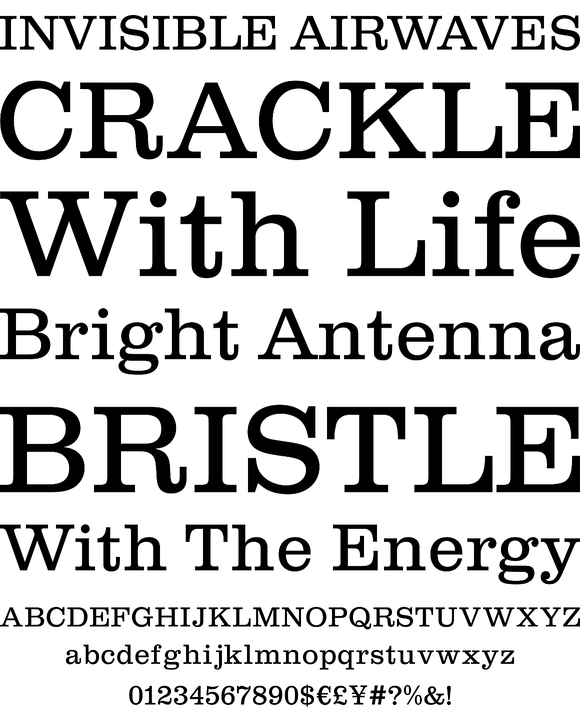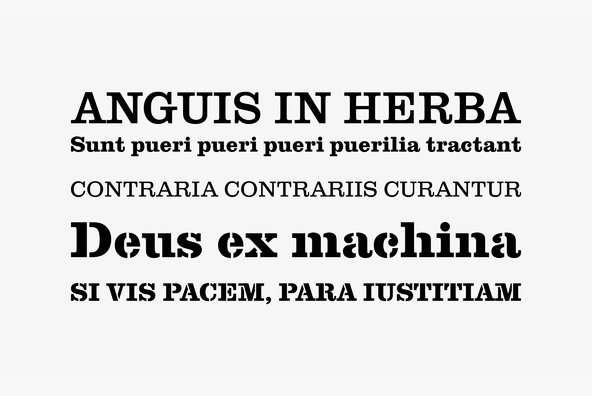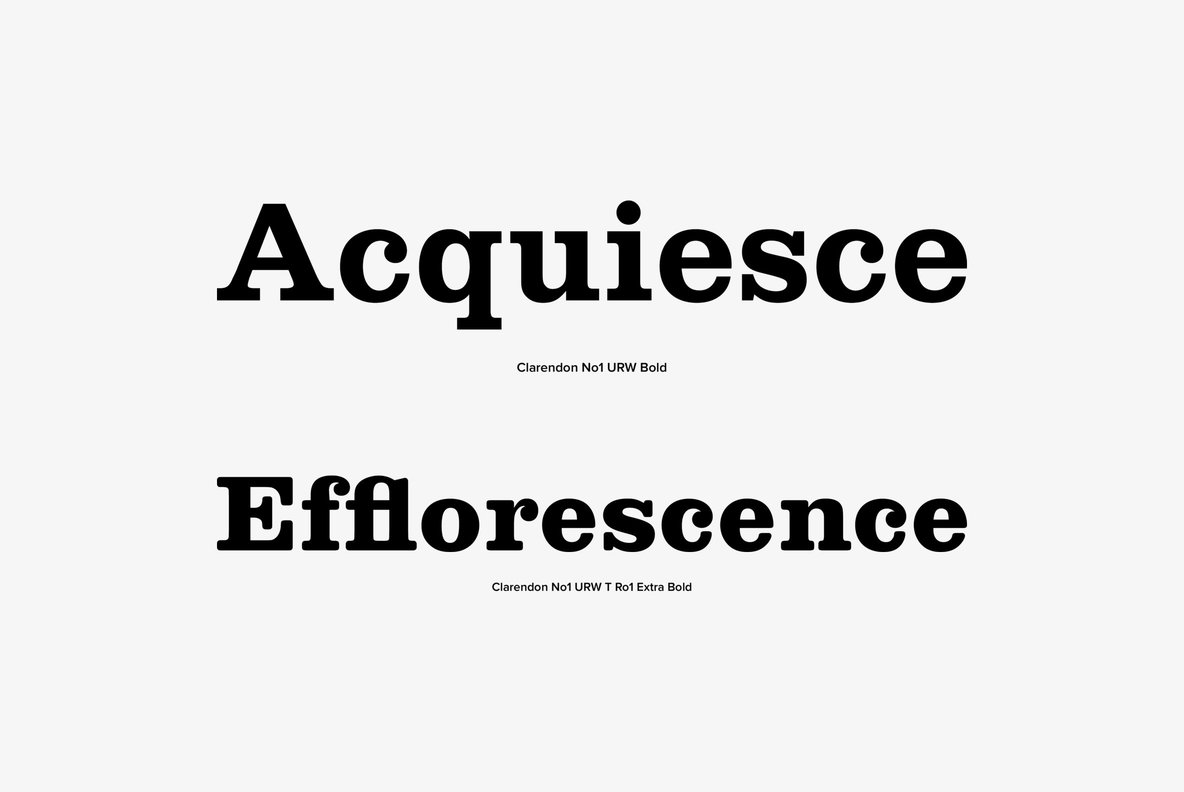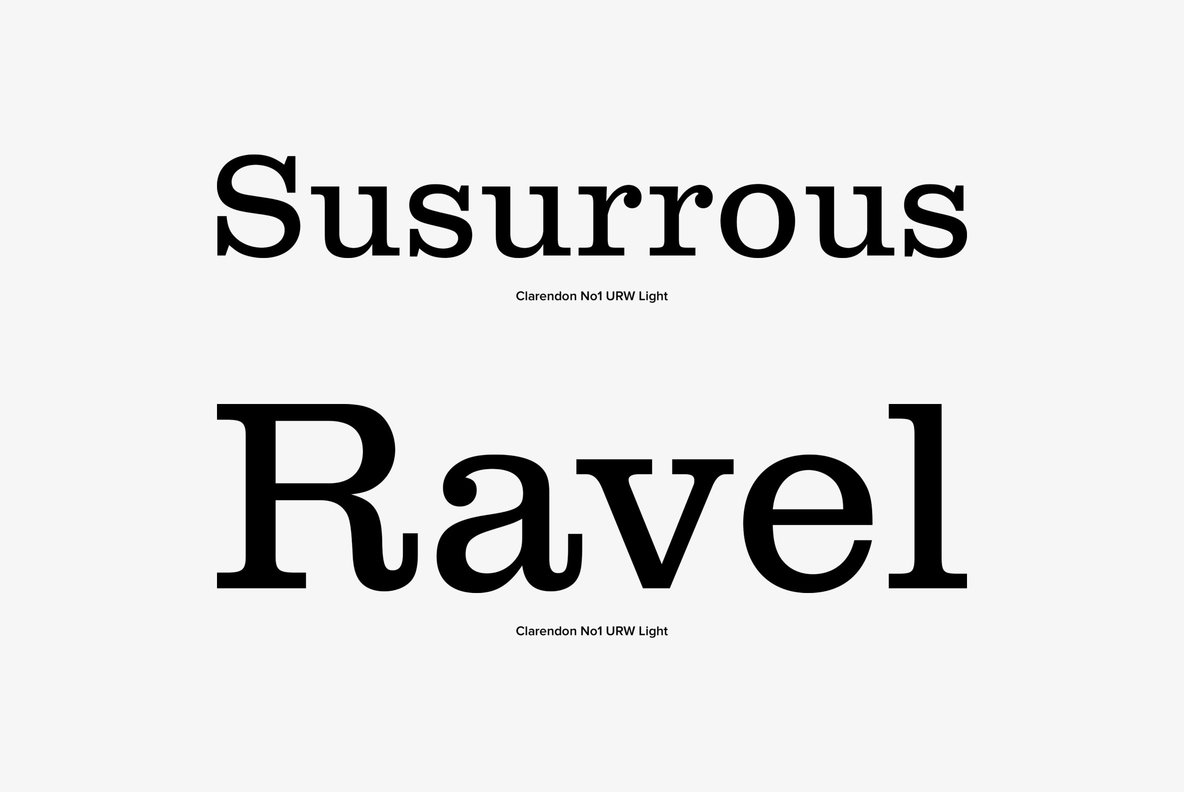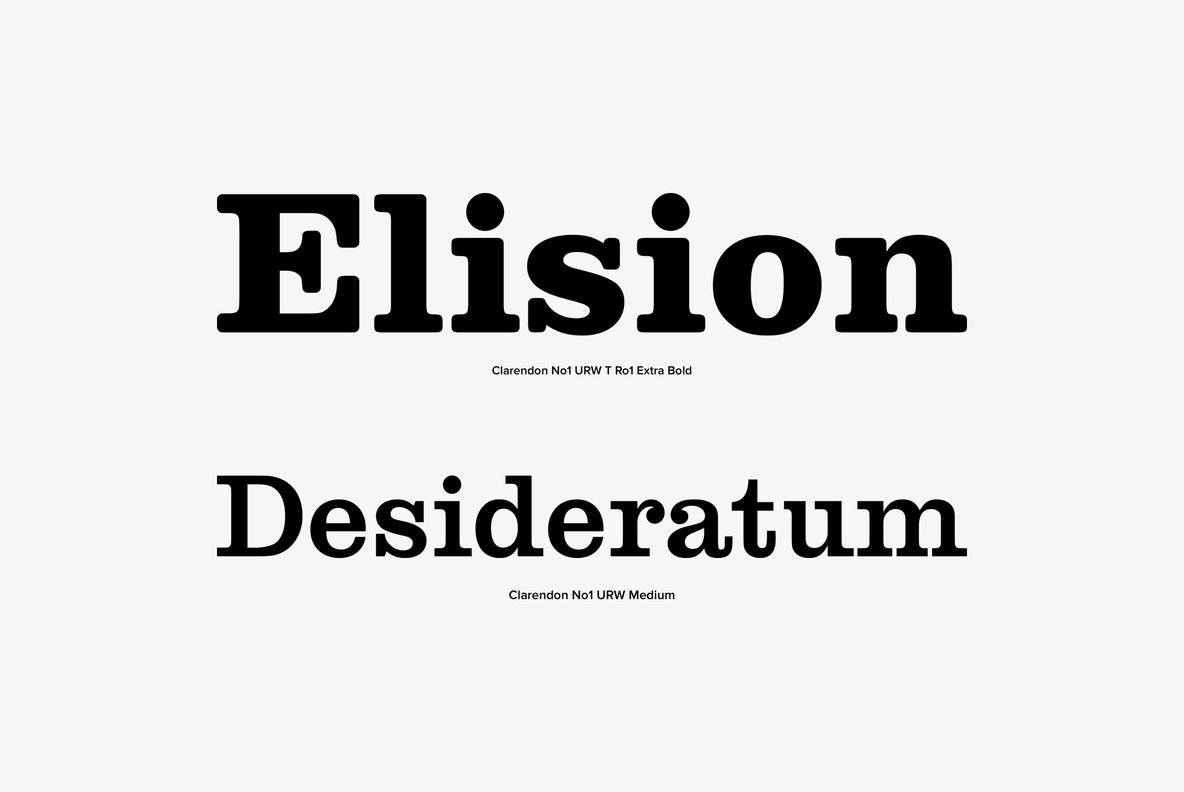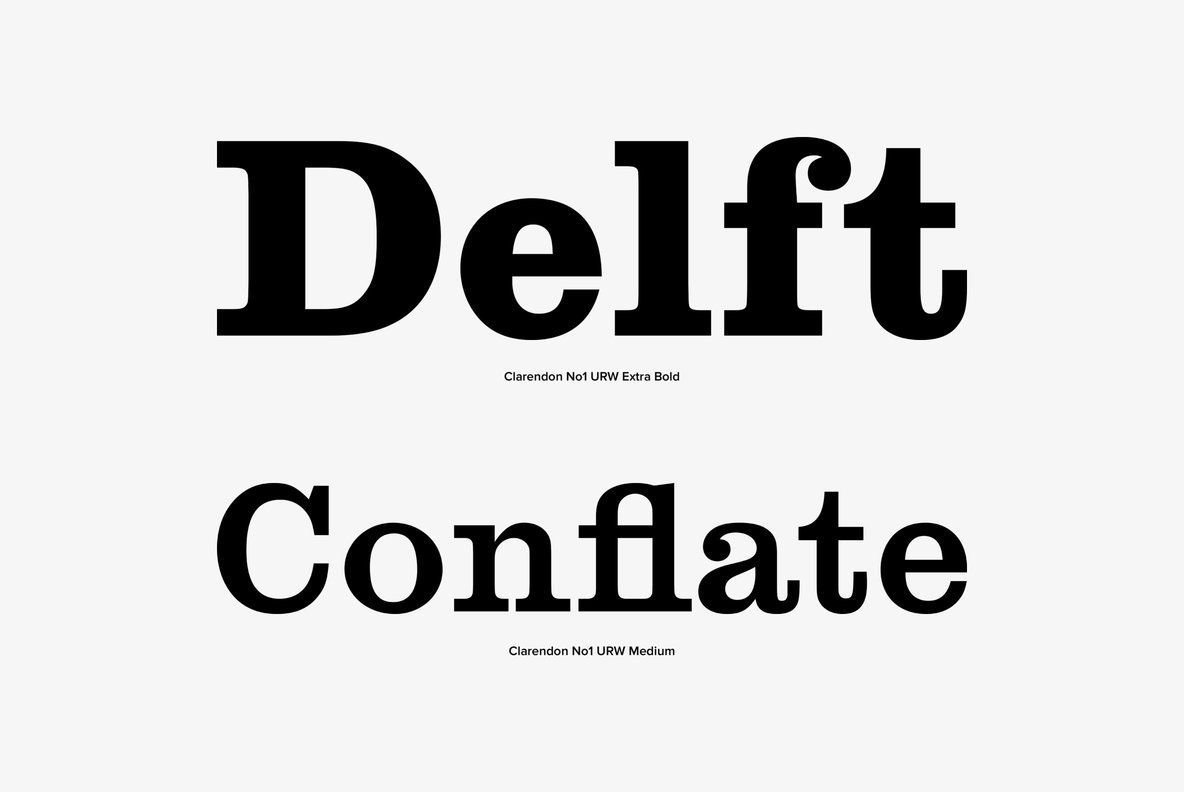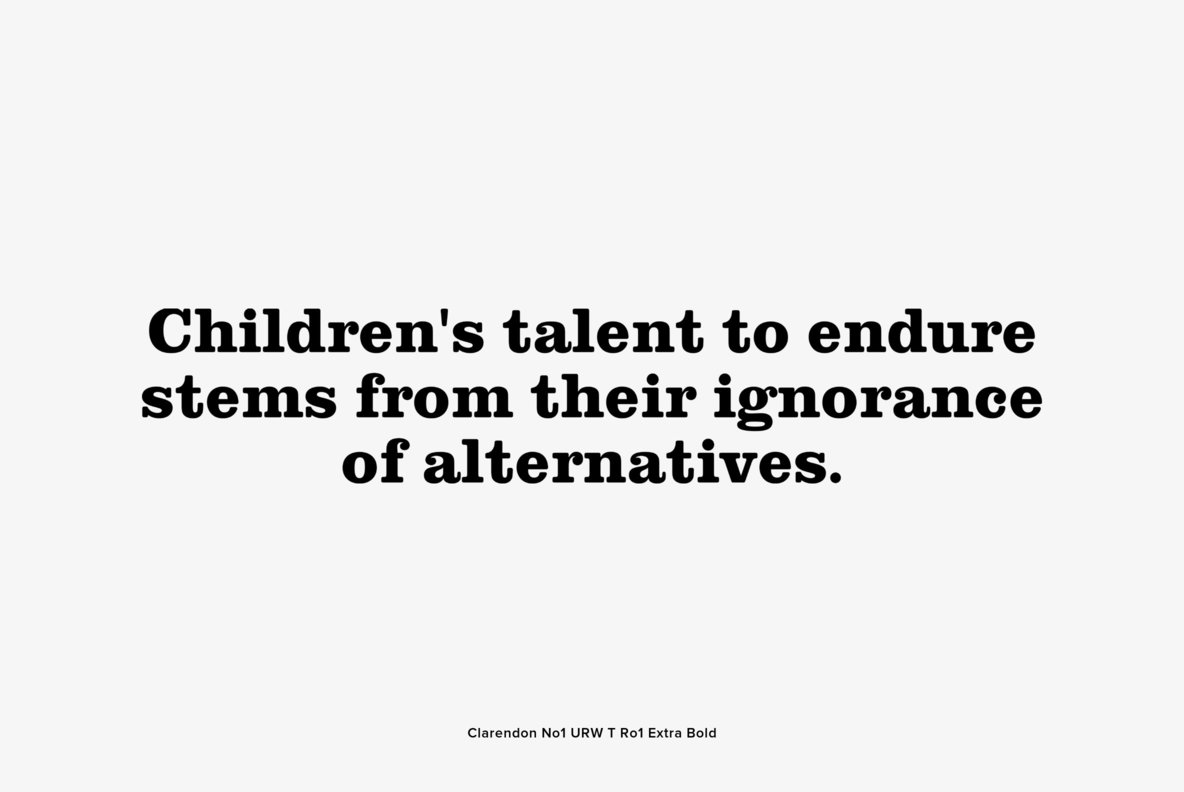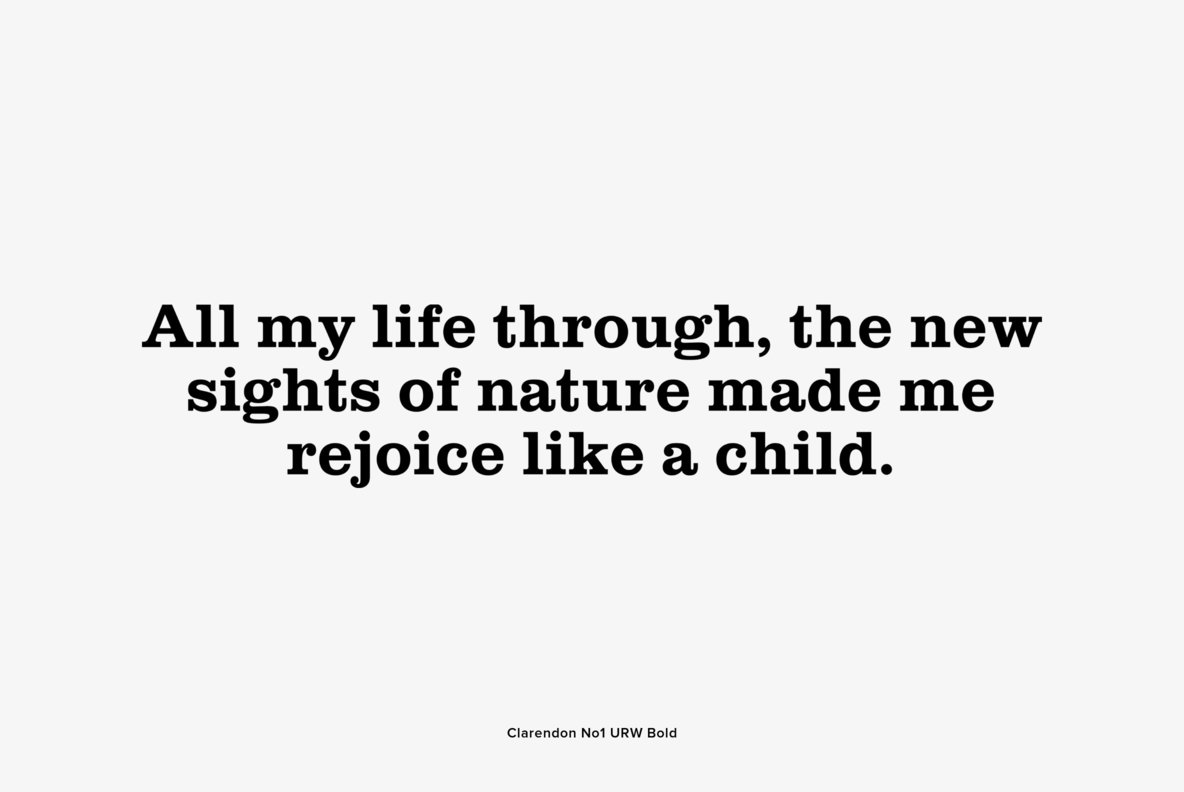
Clarendon No 1 is a classic and elegant serif font design released by URW Studio. Clarendon No 1 contains West, East, Turkish, Baltic, Romanian language support.